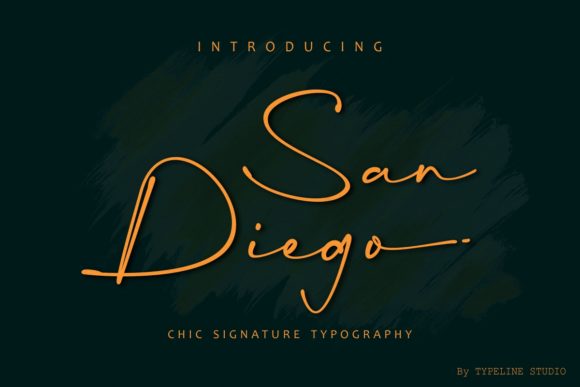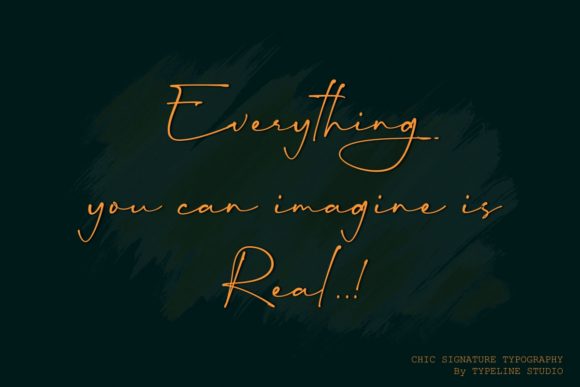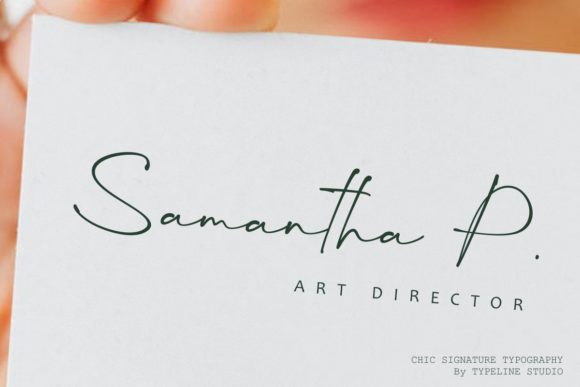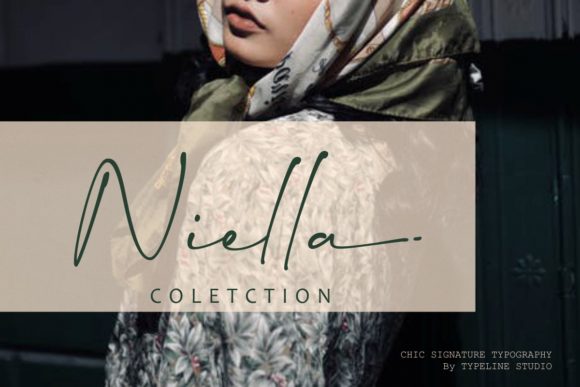
About San Diego Font
San Diego is a lovely and delicate handwritten font. It has thin and dainty characters and is the ideal choice for any design that requires a personalized touch. This font is PUA encoded which means you can access all of the beautiful glyphs and swashes with ease!